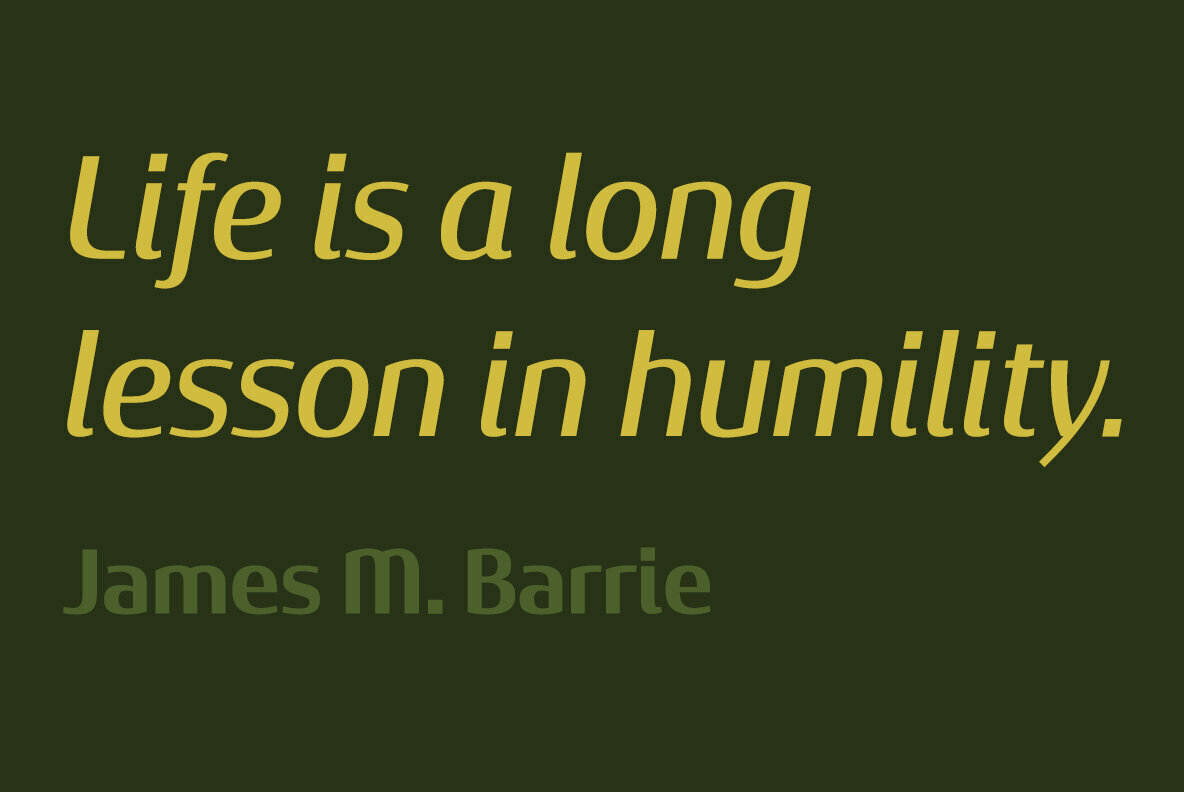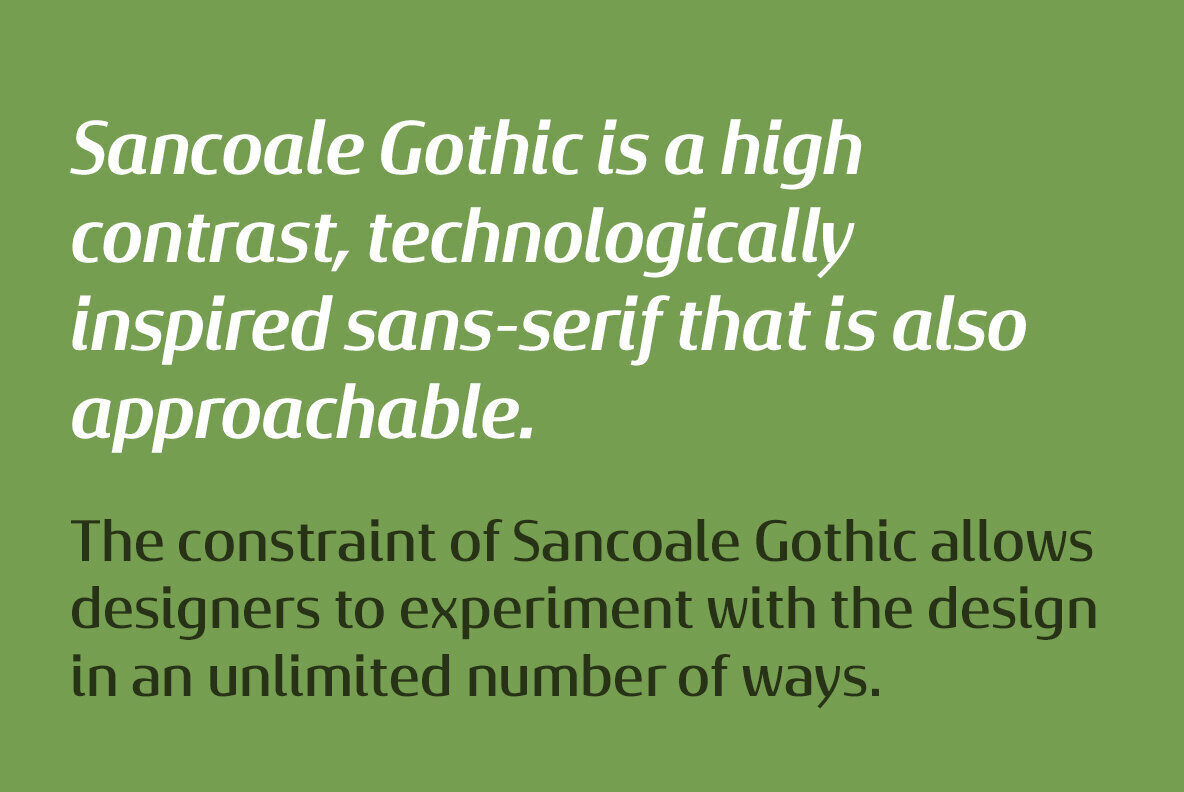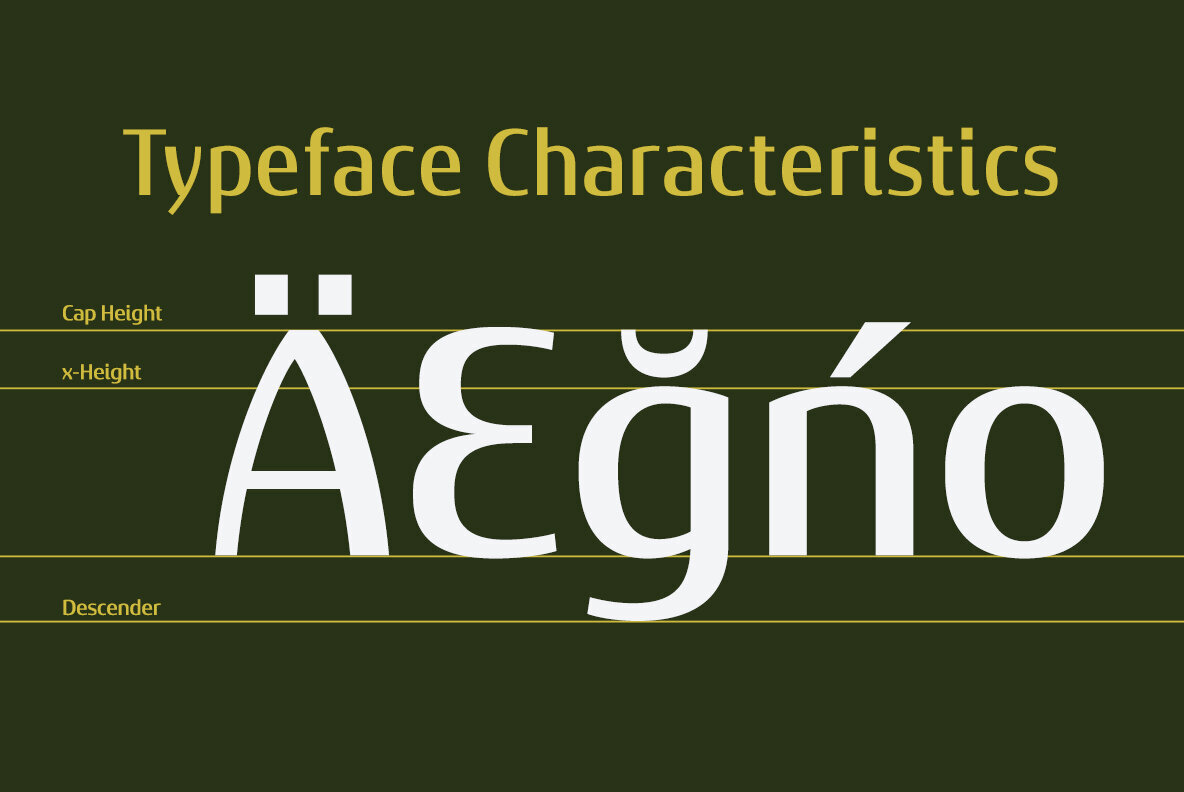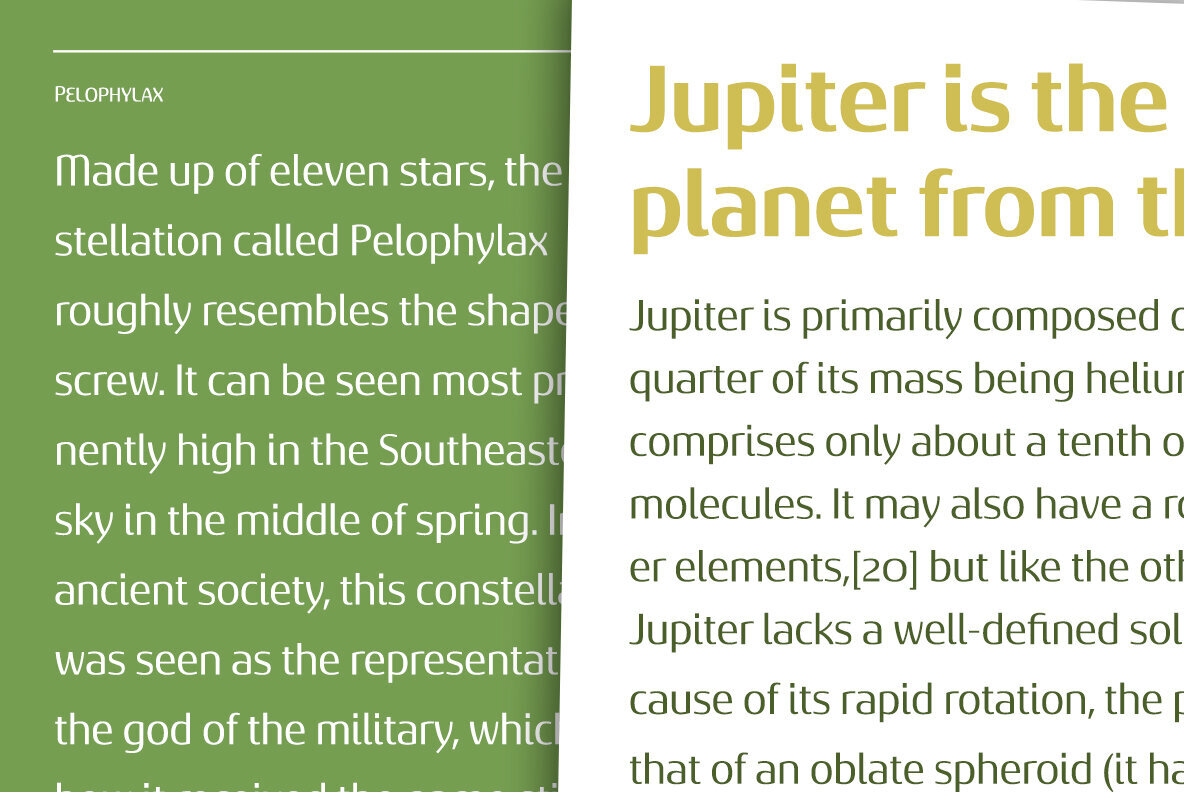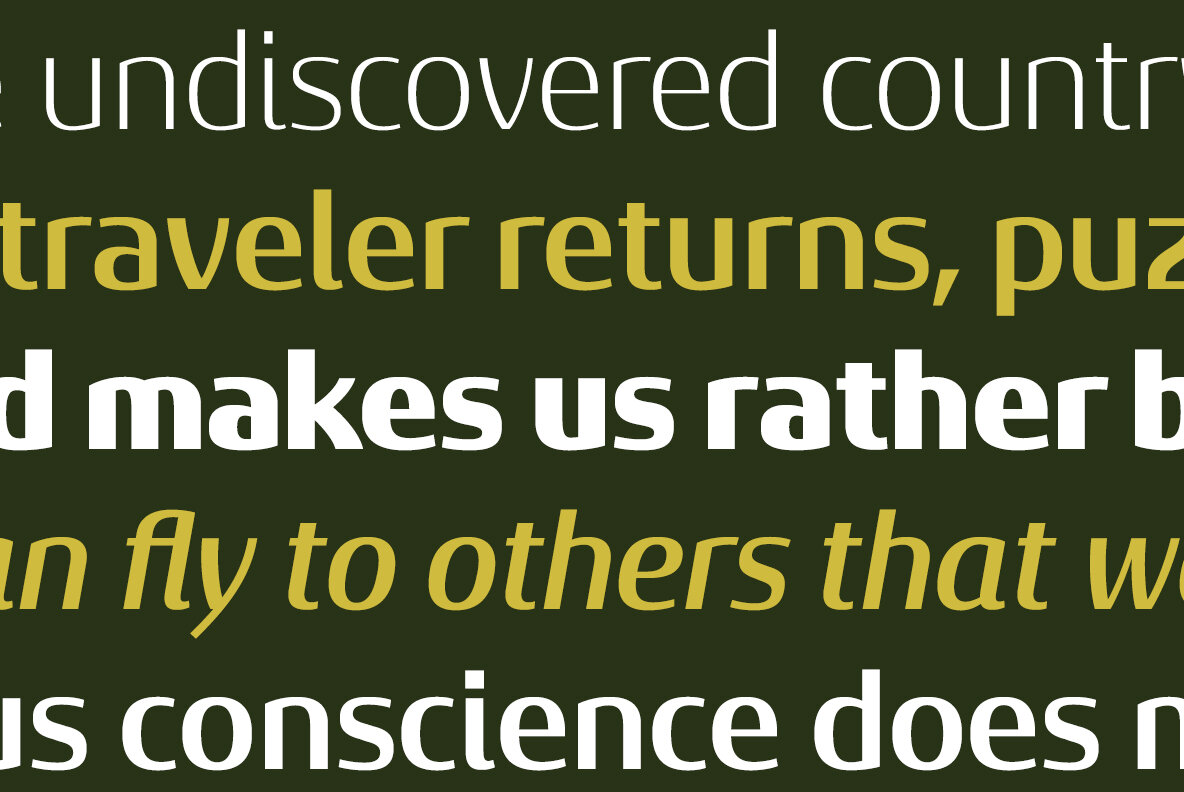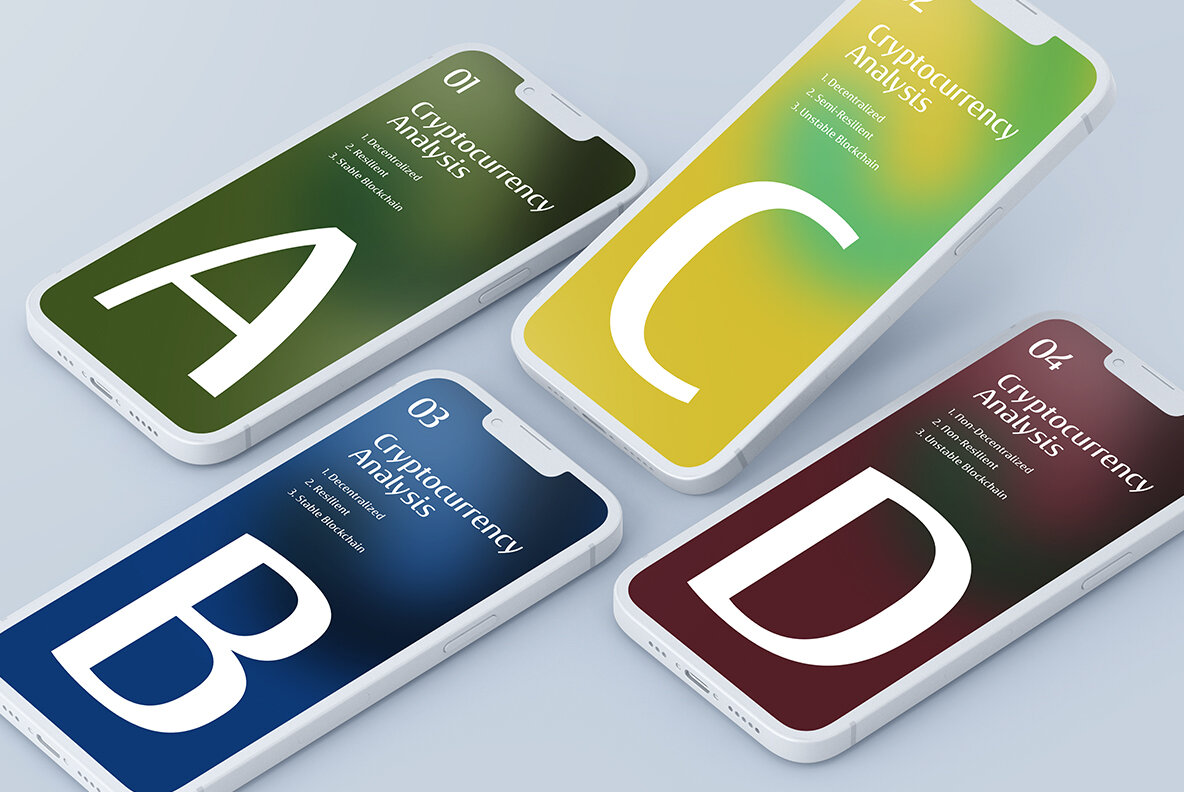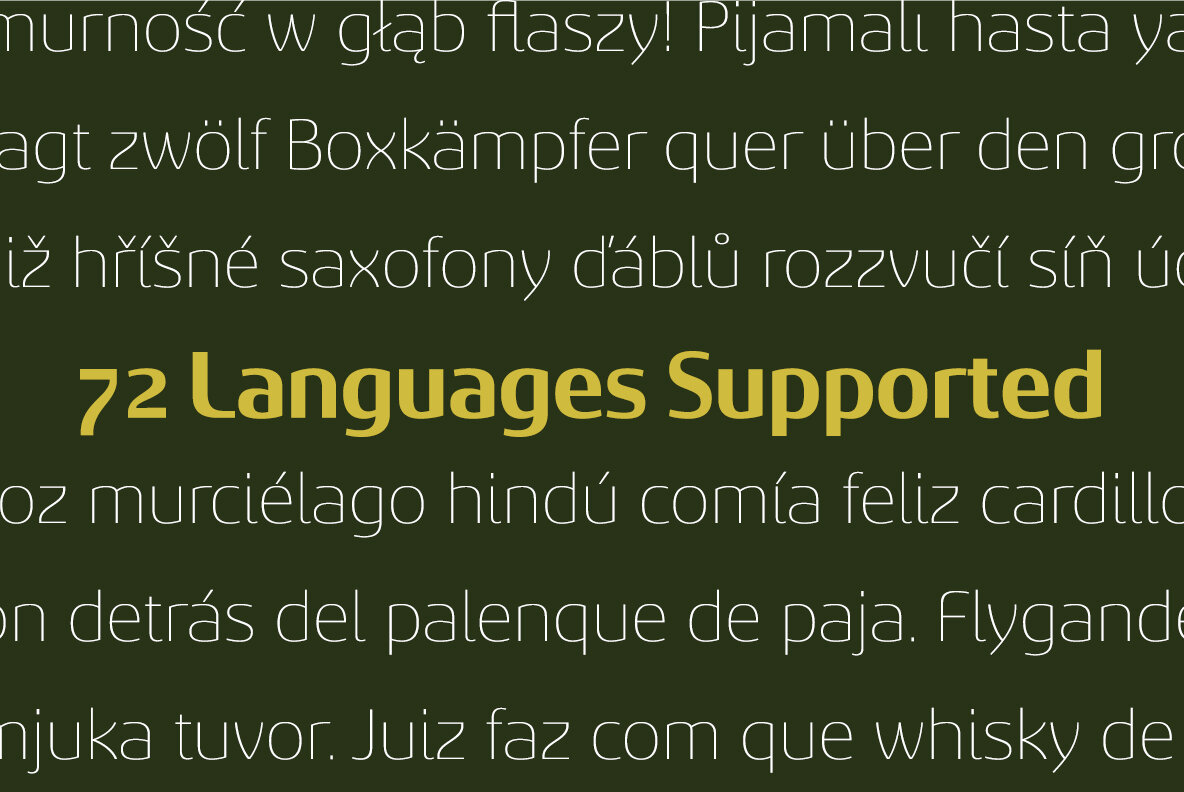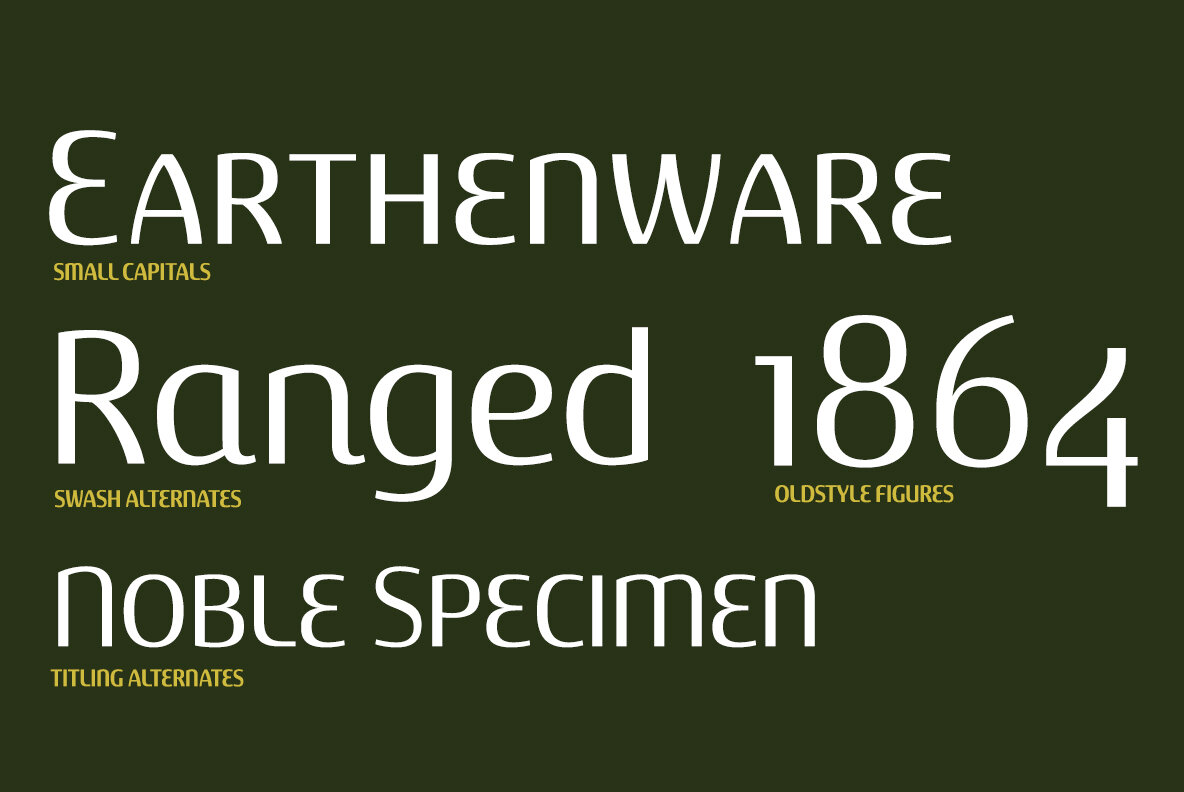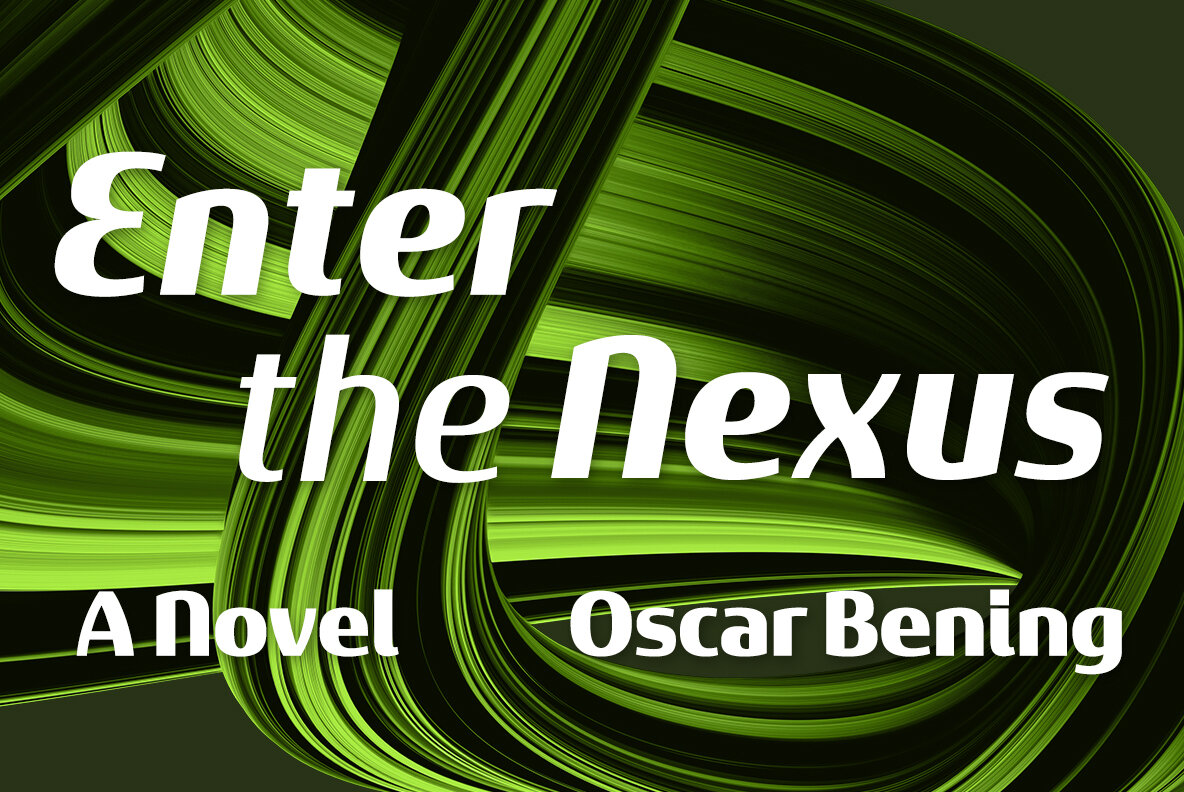
Sancoale Gothic Font
The superfamily offers an array of optical sizes, contrasting weights, and contrasting optical sizes to discover the right balance, contrast, and optical size for your design.
Prepare to be blown away by Sancoale Gothic’s smooth curves and captivating allure. Sancoale Gothic is perfect for both a contemporary and forward looking style. Sancoale Gothic is both practical and unique, in a standalone capacity or with the companion Sancoale fonts. Use it to make an impact today.